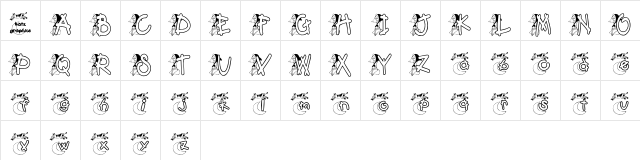
KG MOTHERGOOSE Regular
Design Context for KG MOTHERGOOSE Typeface
KG MOTHERGOOSE is a composed and adaptable typeface that performs quietly and consistently across a wide range of design contexts.